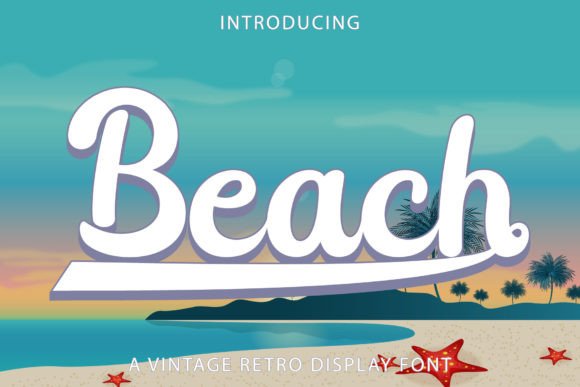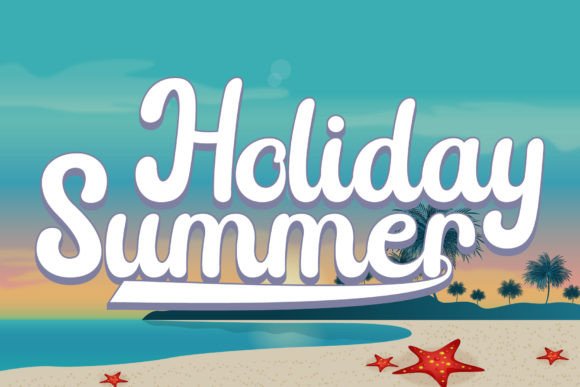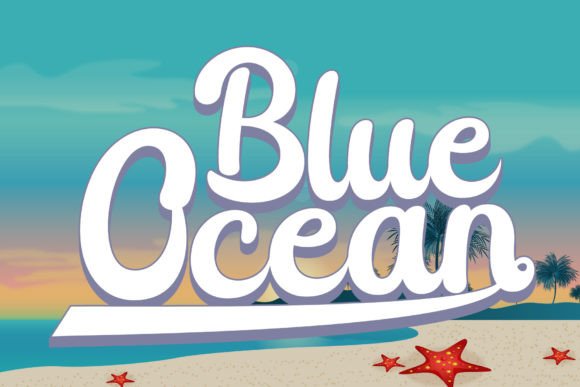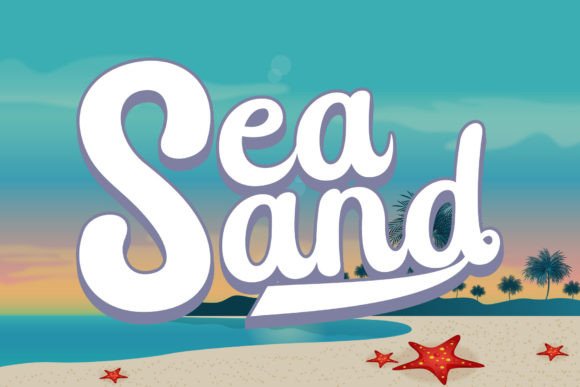
About the Beach Font
Crafted with precision, the Beach Font is ready to bring your ideas to life. Beach is a cool vintage style handwritten display font. This font is inspired by summer. Use it to add a special retro touch to any design idea! Can be used for logos, branding, invitations, stationery, wedding designs, social media posts and more!